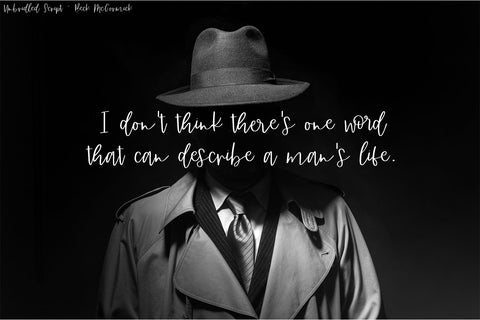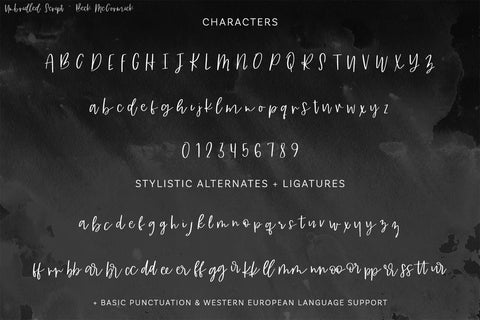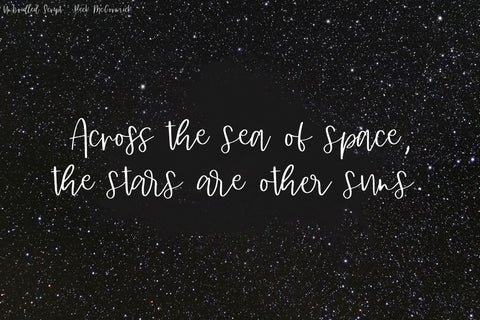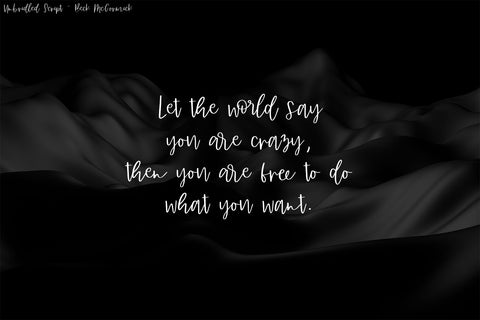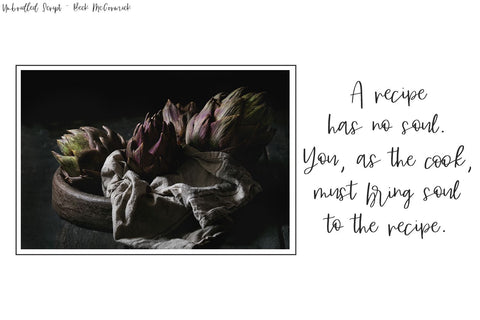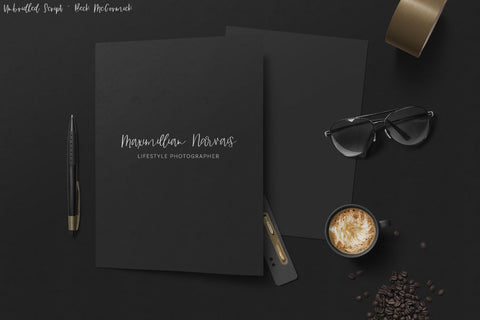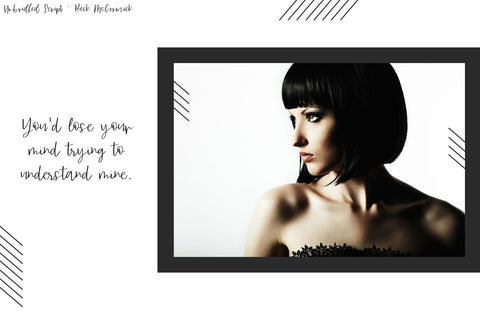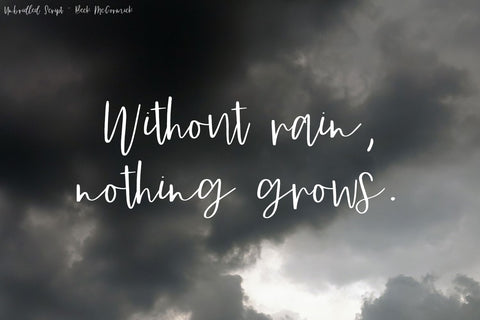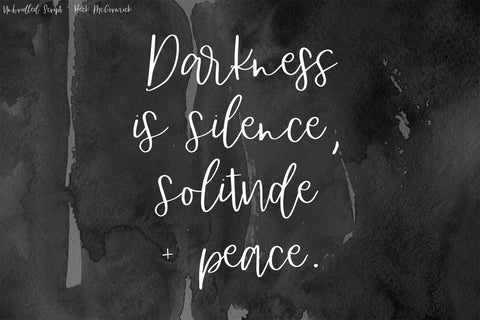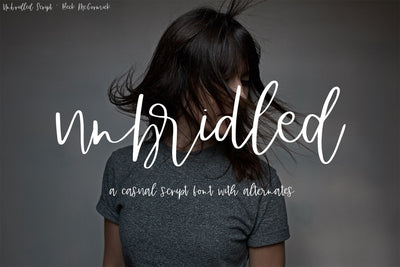
Unbridled Script Font
Unbridled Script is a new signature font with femininity and edginess.  Unbridled features a casual stroke + varied baseline for a true handwritten look.  Its alternates + ligatures add to that look, making it perfect for projects that need a unique handwritten font.  The slightly wild & free quality makes it a perfect fit for boss babes looking to make a statement.
Unbridled Script Font is best for:
- logos + branding
- quote graphics for social media
- clean print design, like magazines + flyers
- header elements that need casual, modern feel
Unbridled Script Font includes:
- full upper + lowercase characters
- numbers + punctuation
- Western European Language Support
- 29 lowercase alternate characters + 23 ligatures (ff, rr, bb, ar, br, cc, dd, ee, er, ff, gg, ir, kk, ll, mm, nn, oo, or, pp, rr, ss, tt, ur)